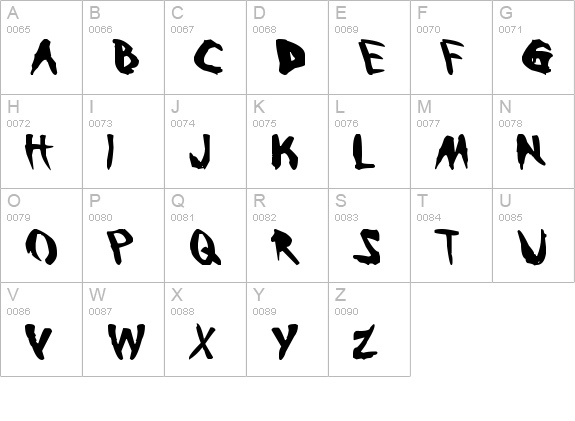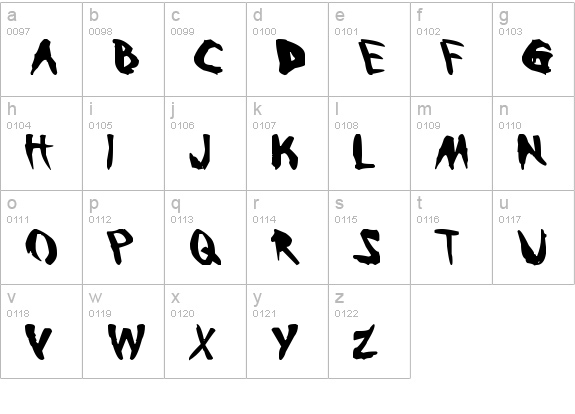
Bleeding Trough Font Details
Bleeding Trough font is a unique and eye-catching typeface that exudes a sense of mystery and intrigue. With its dripping and distorted letterforms, this font is perfect for projects that require a touch of edginess and boldness. The jagged edges and rough texture of Bleeding Trough give it a raw and visceral quality that is sure to make your designs stand out. What's even better is that Bleeding Trough font is available for free download at FontsMarket.com. This means you can easily access this striking font and incorporate it into your creative projects without any cost. Whether you're working on a poster, logo, or any other design project, Bleeding Trough font is sure to add a touch of drama and excitement. Download it today and unleash your creativity with this captivating typeface.